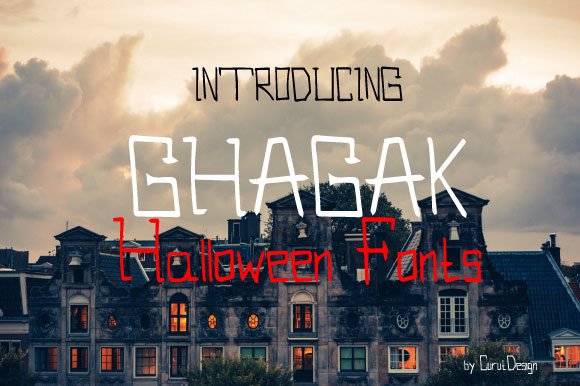
The Perfect Font for a Spooky Night
As a designer, there’s nothing quite like the rush of creating something new and exciting. You’re brainstorming ideas, experimenting with different styles, and suddenly, a spark of inspiration hits. It’s moments like these that remind us why we love our jobs. For me, it happened while working on a Halloween project. I wanted to create a font that would capture the eerie atmosphere of the season, and that’s when I stumbled upon the Ghagak Font.
This spooky and weird display font is perfect for adding a touch of darkness to any Halloween-themed project. Its unique design and bold typography make it stand out from the crowd, and its versatility allows designers to get creative with their projects. Whether you’re designing a poster, a logo, or a website, the Ghagak Font is sure to add a haunting charm to your work.
Ghagak Font Key Features
- Unique Character Set: Ghagak Font features a unique set of characters, including a wide range of diacritical marks, ligatures, and ornaments, making it ideal for languages that require these special characters.
- High-Quality Typography: The font is designed with high-quality typography in mind, featuring precise letterforms, even spacing, and excellent readability, making it suitable for a wide range of applications, including body text, headings, and display typography.
- Scalability: The font is designed to be highly scalable, meaning it looks great at any size, from small text to large display typography, making it a great choice for designers who need a font that can adapt to different contexts.
Ghagak Font Review
Overall, I’d say the Ghagak Font is a decent choice for designers looking for a unique, sans-serif font. ✨ It’s versatile and can be used for both body text and headings, making it a great addition to any design project.
- ✨ Unique character set: The Ghagak Font has a distinctive set of characters that can add a touch of elegance to any design.
- ✨ Highly legible: The font is easy to read, even at small sizes, making it perfect for digital use.
- ✨ Great for headings: The font’s bold, sans-serif design makes it perfect for headings and titles.
- ⚠️ Limited font sizes: While the font is highly legible, it’s not designed for extreme font sizes. It can get a bit awkward at very large or very small sizes.
- ⚠️ Limited language support: The Ghagak Font is primarily designed for Latin-based languages, so it may not be the best choice for languages that use non-Latin scripts.
Overall, I’d give the Ghagak Font 4 out of 5 stars. It’s a solid choice for designers who want a unique, sans-serif font for their projects. However, its limitations may make it less suitable for certain types of projects.
Use the Ghagak Font in conjunction with bold or italic text to create visually appealing headings and titles.
Experiment with different font sizes and styles to create a unique visual identity.
Use the Ghagak Font in combination with other design elements, such as images and graphics, to create a cohesive design.
The Ghagak Font is ideal for: